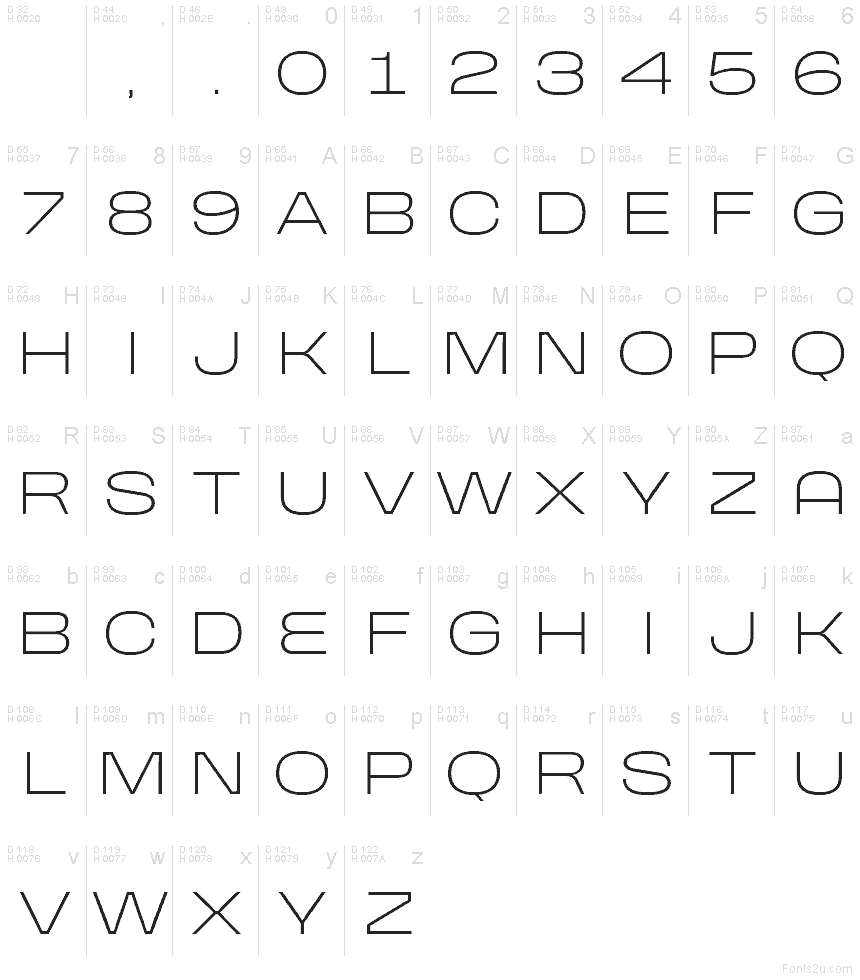
GROZEN MEDICAL DEMO Light
Grozen Medical Light font by Bring to Type is a free light sans serif font. Part of the Grozen Medical family, it brings clinical clarity to headlines with hairline strokes, generous spacing, and a geometric skeleton that feels sterile yet refined. Its razor-thin lines and crisp, straight spines give a lab-grade neatness that reads cleanly at larger sizes without visual noise.
Using Grozen Medical Light, healthcare and wellness brands can set calm, modern headlines for clinic websites, telehealth apps, skincare packaging, pharma ads, editorial infographics, and product brochures. This free font shines on hero text and section labels where an airy, trustworthy tone matters; pair it with a sturdier grotesk or system sans for body copy, and scale up generously to keep those delicate strokes luminous.